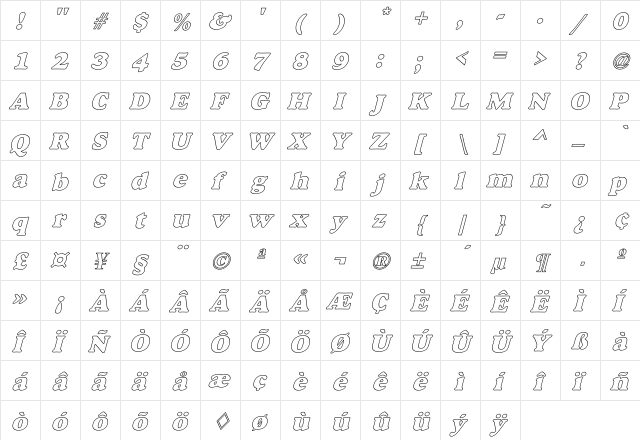
Alexuss Heavy Holl_I Italic
Design Context for Alexuss Heavy Holl_I Typeface
Alexuss Heavy Holl_I takes a measured approach to typography — its balanced proportions and neutral character make it a reliable workhorse for both digital and print work. The dynamic lean of this cut emphasises speed and emphasis in any layout.
Pro Tip: Use Alexuss Heavy Holl_I for emphasis, pull quotes, and subheadings where its slanted energy can add rhythm to the layout.